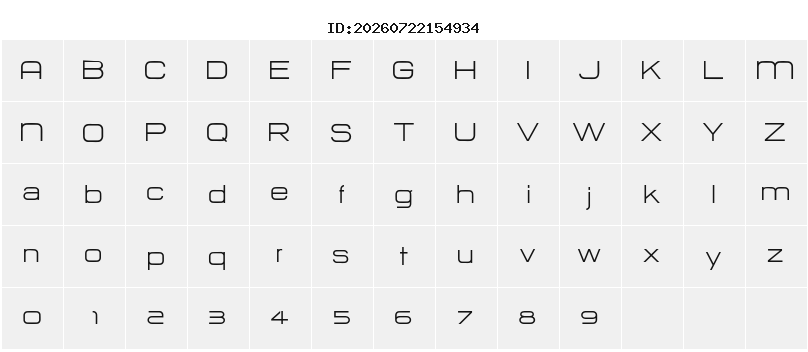
About HURTMOLD_.otf
HURTMOLD_.otf is a modern, elegant sans-serif font designed for ultimate readability and visual harmony. Perfect for branding, headlines, web design, and print materials.